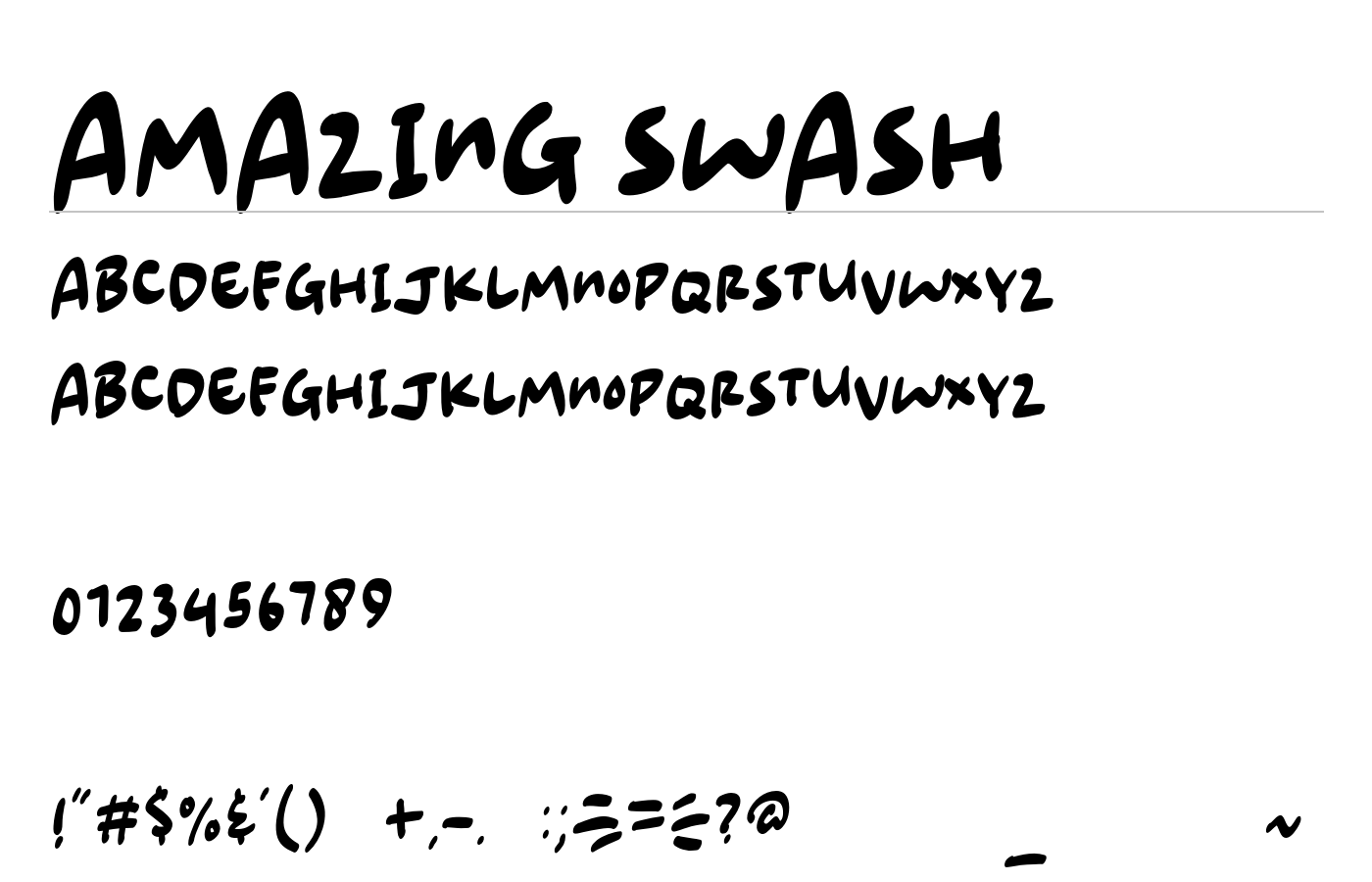
Amazing Swash is a lively and casual handwritten font characterized by its bold, brush-like strokes and irregular letterforms, giving it an energetic and playful feel. With its strong presence and informal style, it works great for creative projects, branding, and headlines that seek a personal, approachable touch. This font shines in designs that aim to convey friendliness and spontaneity while maintaining clear readability.
Amazing Swash Font
About Amazing Swash Font